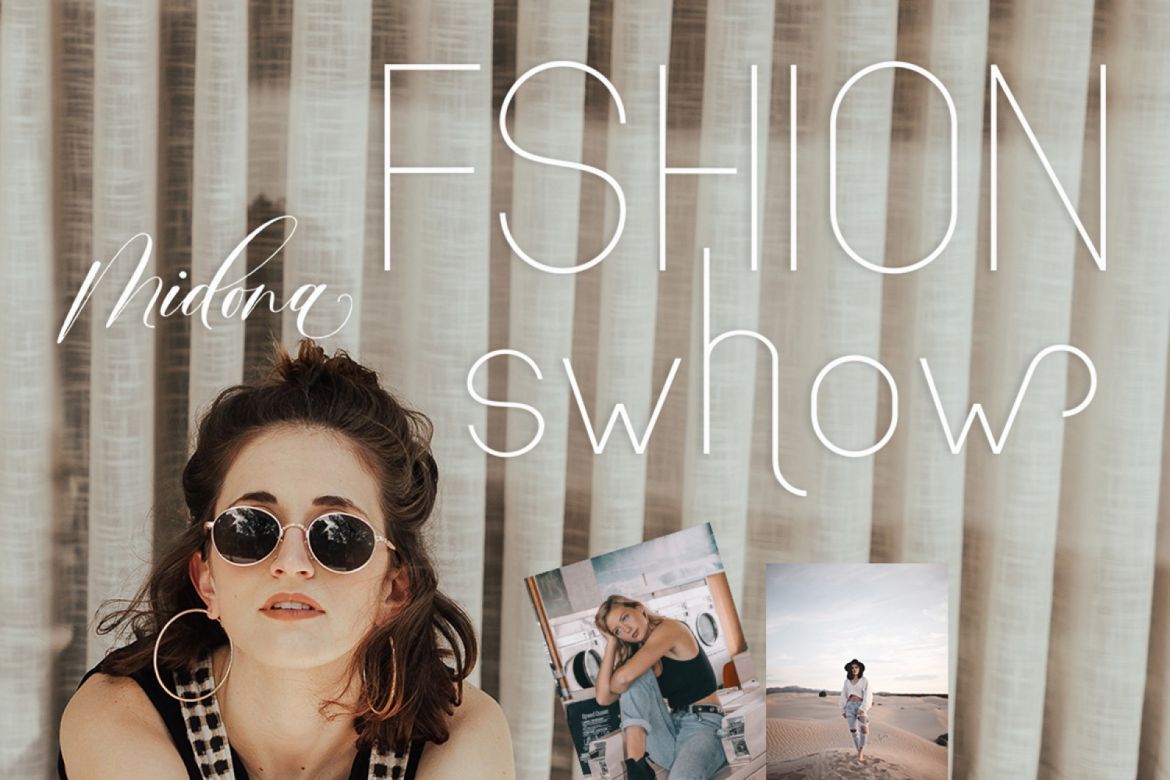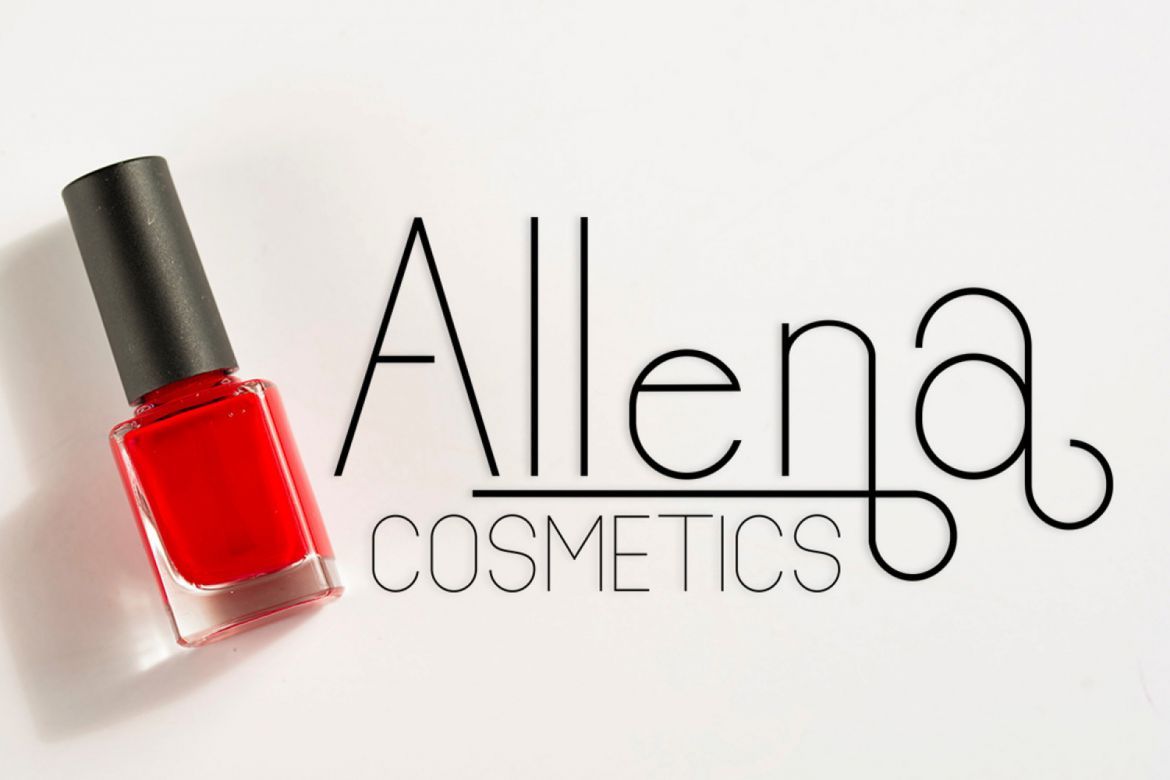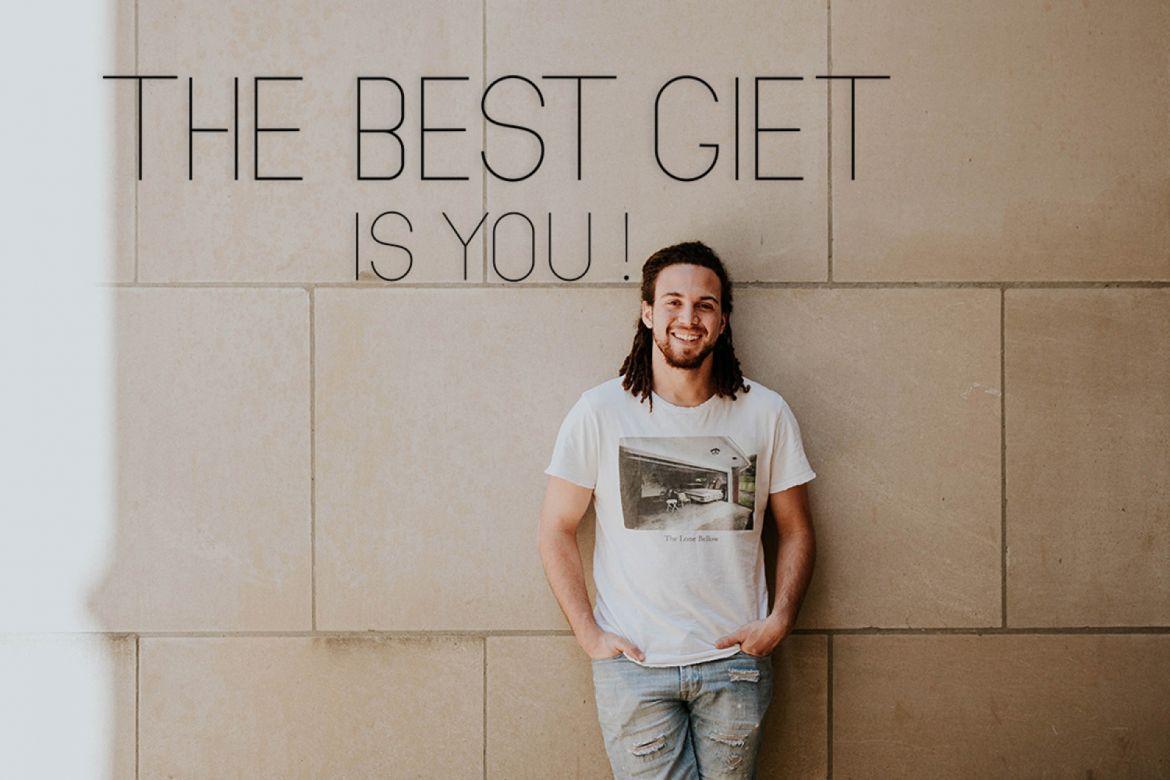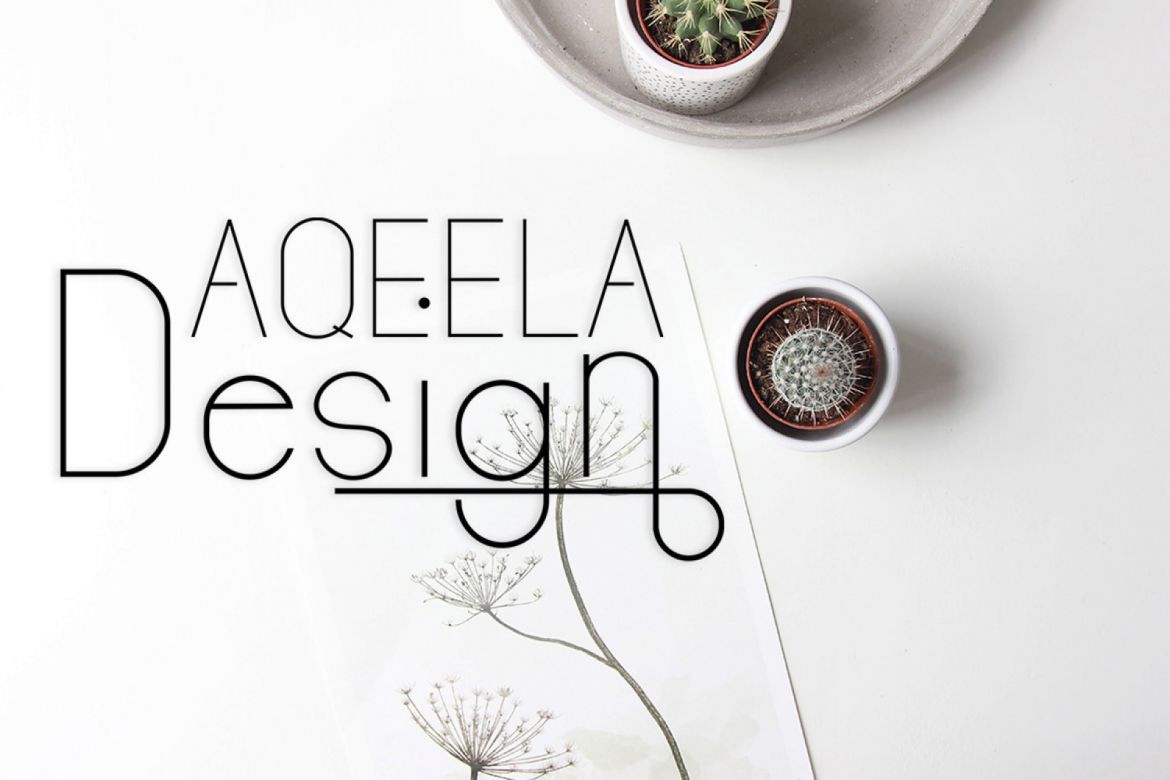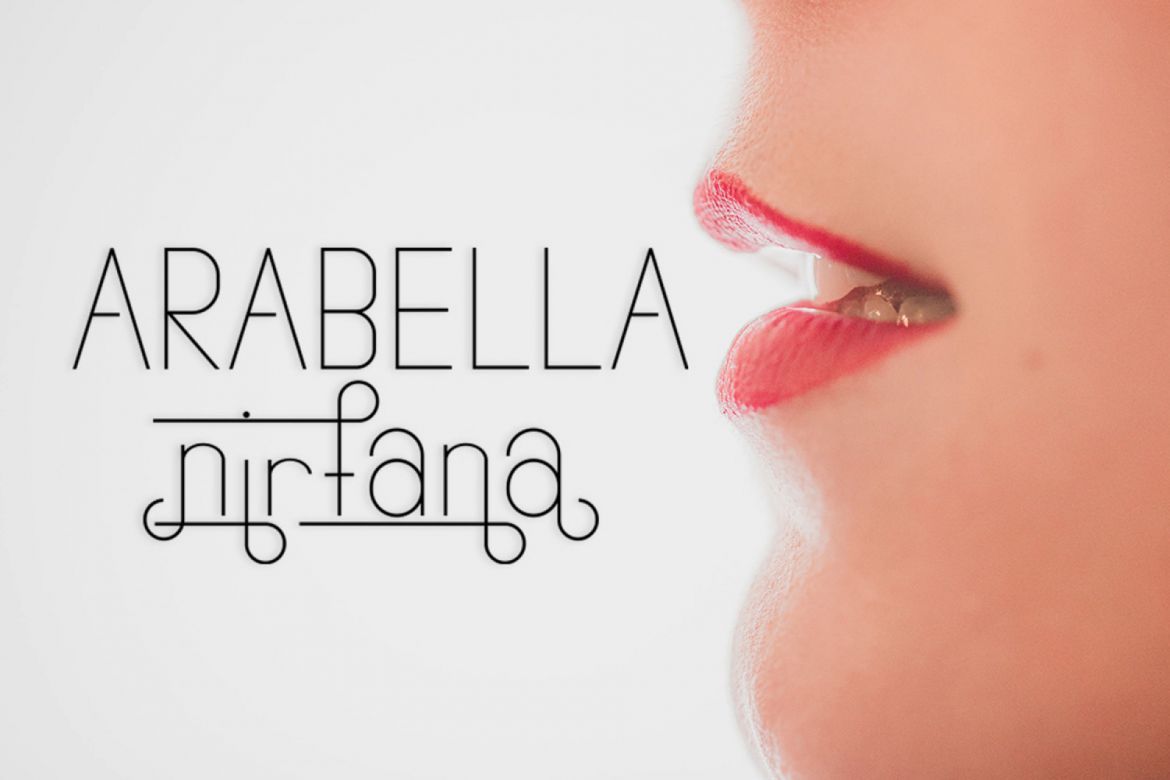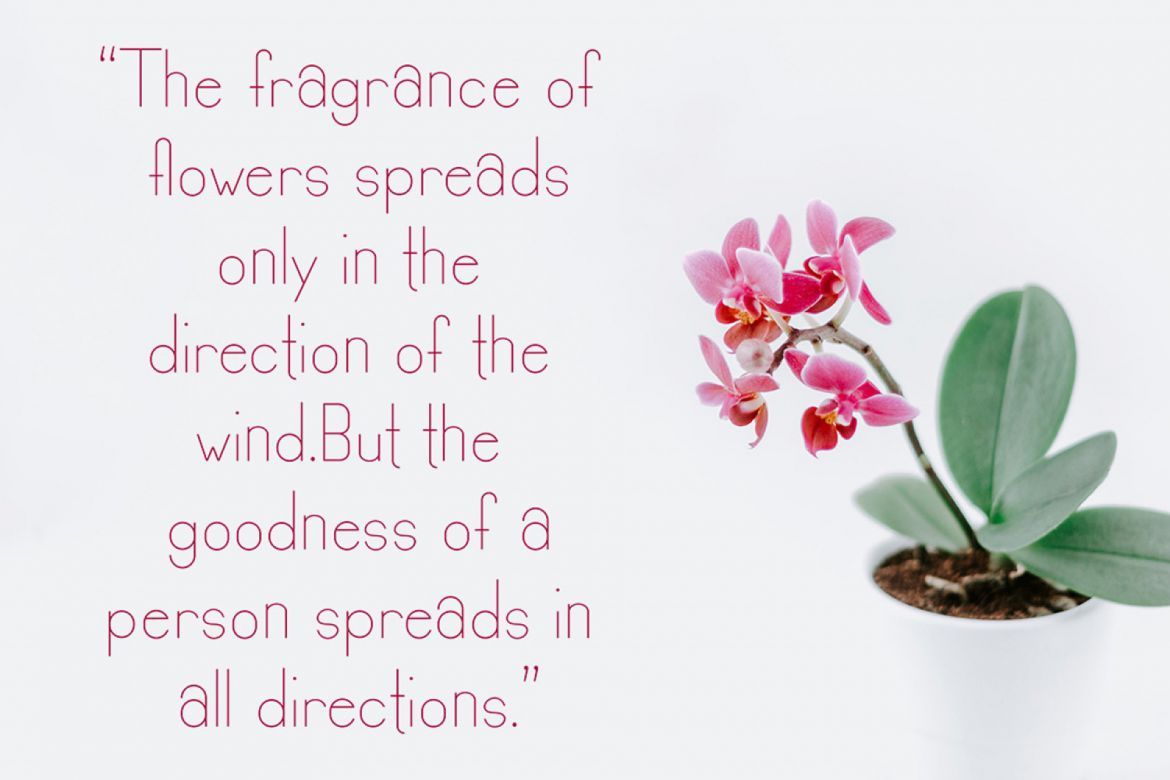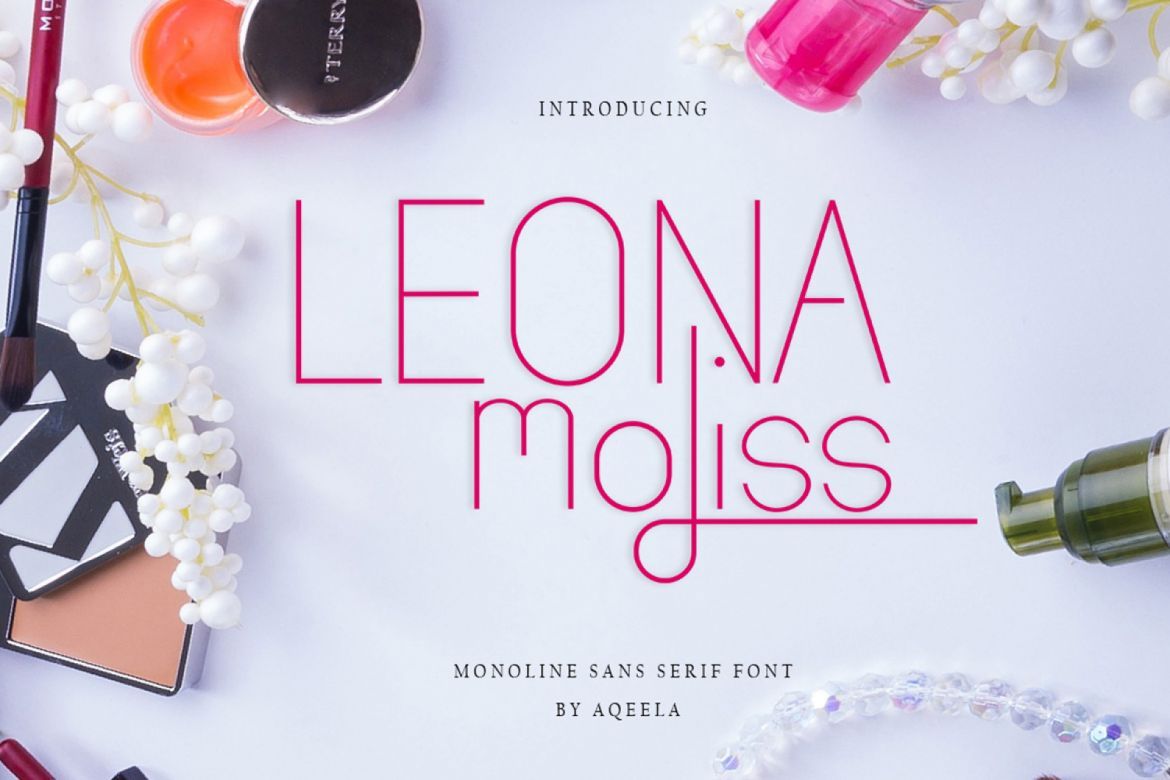
LEONA moliss Font
LEONA moliss are upper and smaller Sans serif fonts with balanced curves. Like all my fonts inspired by letters from a beautiful past, but still have a strong modern appearance. A variety of alternative styles allow versatile design options and work perfectly for headlines, logos, posters, packaging, T-shirts, postcards and more. To enable the OpenType Stylistic alternates, you need a program that supports OpenType features such as Adobe Illustrator CS, Adobe Indesign & CorelDraw X6-X7, Microsoft Word 2010 or later versions.